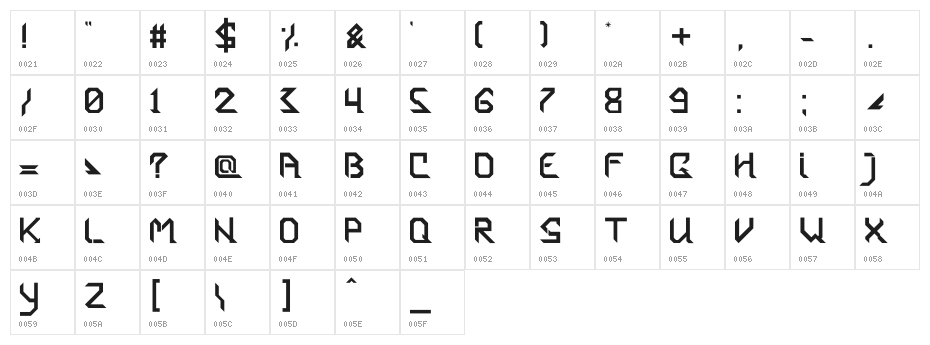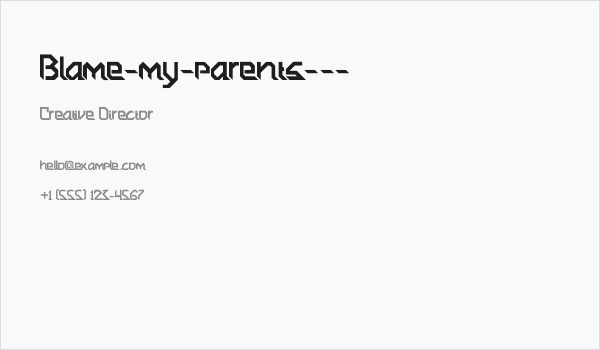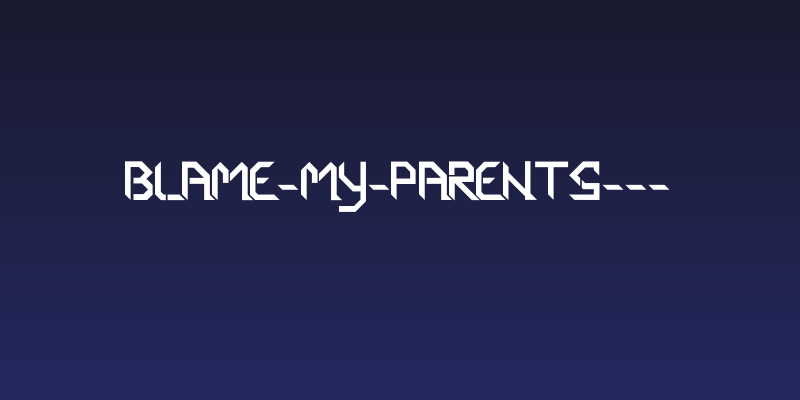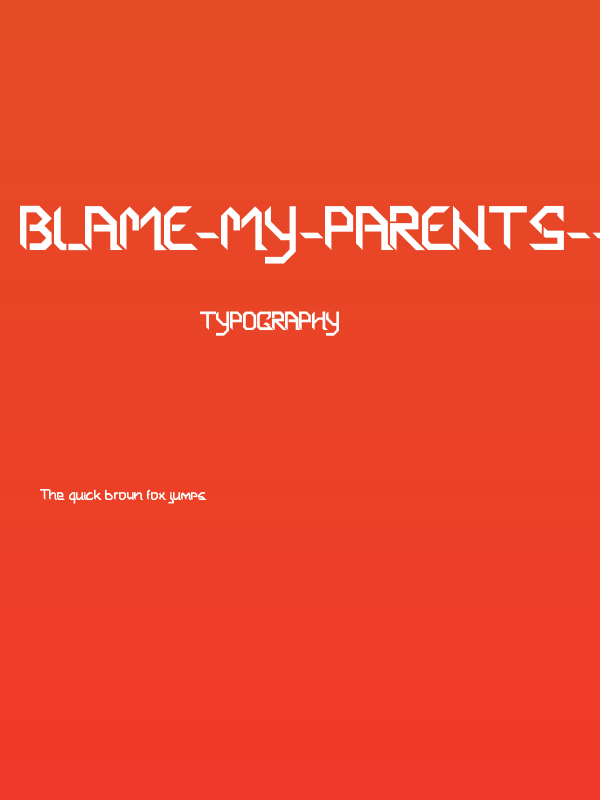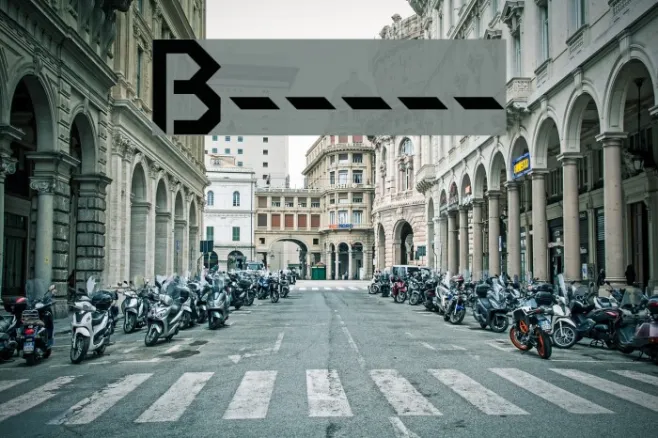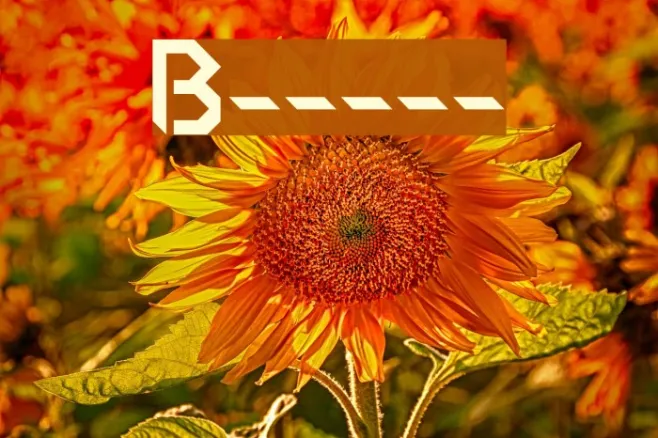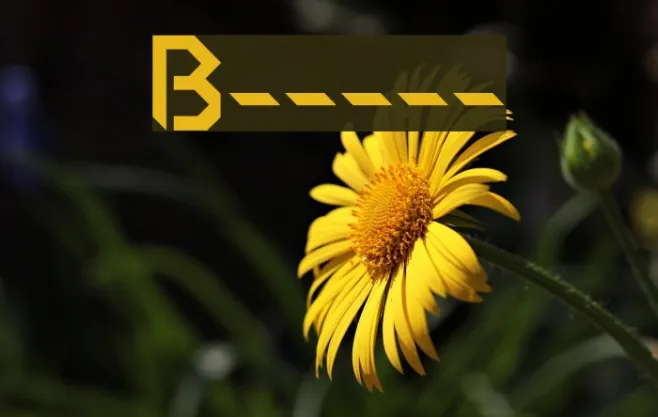
Blame-my-parents--- Font
Blame-my-parents--- Description
This font features a bold, geometric design with sharp angles and a futuristic aesthetic. The characters are constructed with thick lines and angular cuts, giving it a distinct, edgy appearance. The uppercase and lowercase letters maintain a consistent style, with a strong emphasis on symmetry and uniformity. Numbers and special characters are designed to match the boldness and angularity of the alphabet, creating a cohesive look across all glyphs. The font's unique style makes it stand out, ideal for projects that require a modern and striking visual impact.
| Overall Style | Futuristic, Edgy |
| Proposed Projects | Ideal for sci-fi themed designs, video game graphics, posters, and branding that requires a modern, edgy feel. |